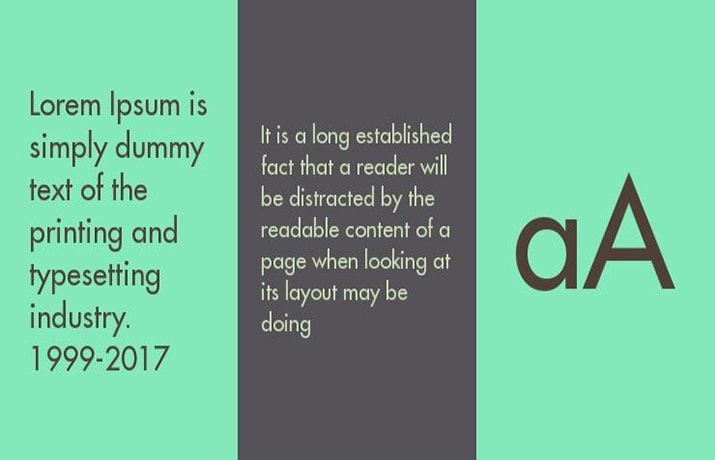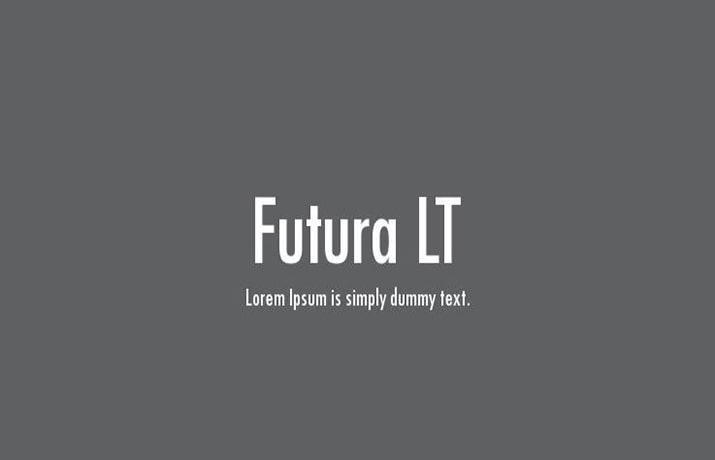
Futura Lt Font is a free sans serif typeface: a display family suitable for headlines, captions, and packaging that boasts an extended character set.
Moreover, This sans serif font is an ideal choice for long body copy, including headers and subheadings.
This typeface was created with cut corners and a simple look. While its height is high which makes it wide and long. Thus, it feels unique and beautiful.
Also, it is easily applicable for official functions. and can be used with other display fonts as well. It’s a really cool thing for a font family that really works beautifully for you.
| Style: | Sans Serif, Display, Geometric |
| Font Designer: | Paul Renner |
It will help in creating almost all kinds of designs. Including, book covers, unique signs, game graphics, printing on cards, brand logos, magazine covers, special event cards, game titling, game graphics, and more.
These fonts are based on transitional typefaces and is suitable for display purposes.